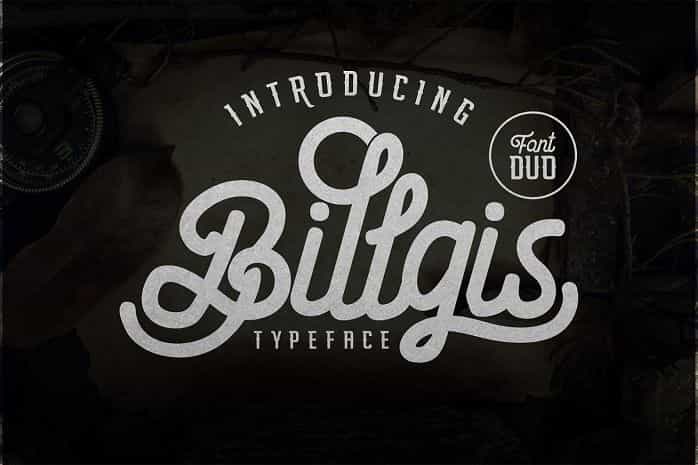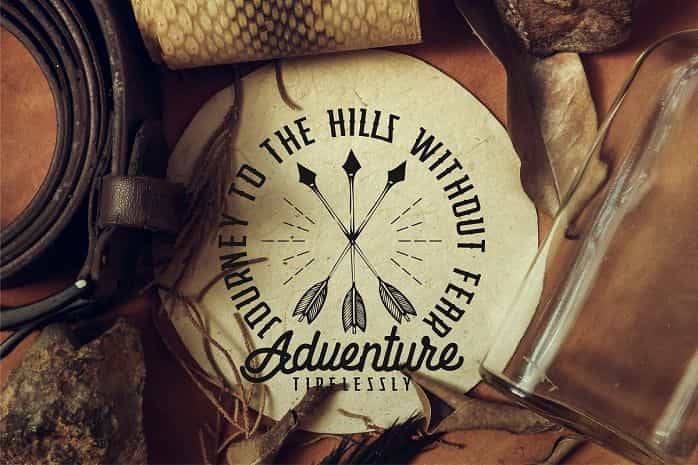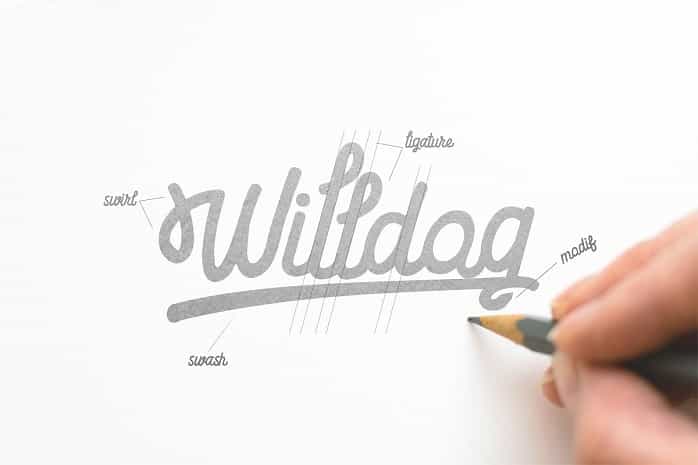
Discover Billgis Font Duo, part of the Brush Display collection—a versatile and unique font perfect for adding a personal touch to your projects. Download it for free and enjoy crafting designs with style, from invitations to social media posts. This font is available exclusively for personal use, giving you the freedom to create without limits. Unlock your creativity with Billgis Font Duo today!
Presenting Billgis Typeface. The Billgis is a brilliant font duo. The handwriting-like font will make your design look like it was made by a human. Ideal for a variety of projects like Photography, logos & branding, invitation, stationery, wedding designs,social media posts, advertisements, product packaging and design, label or water mark special events.